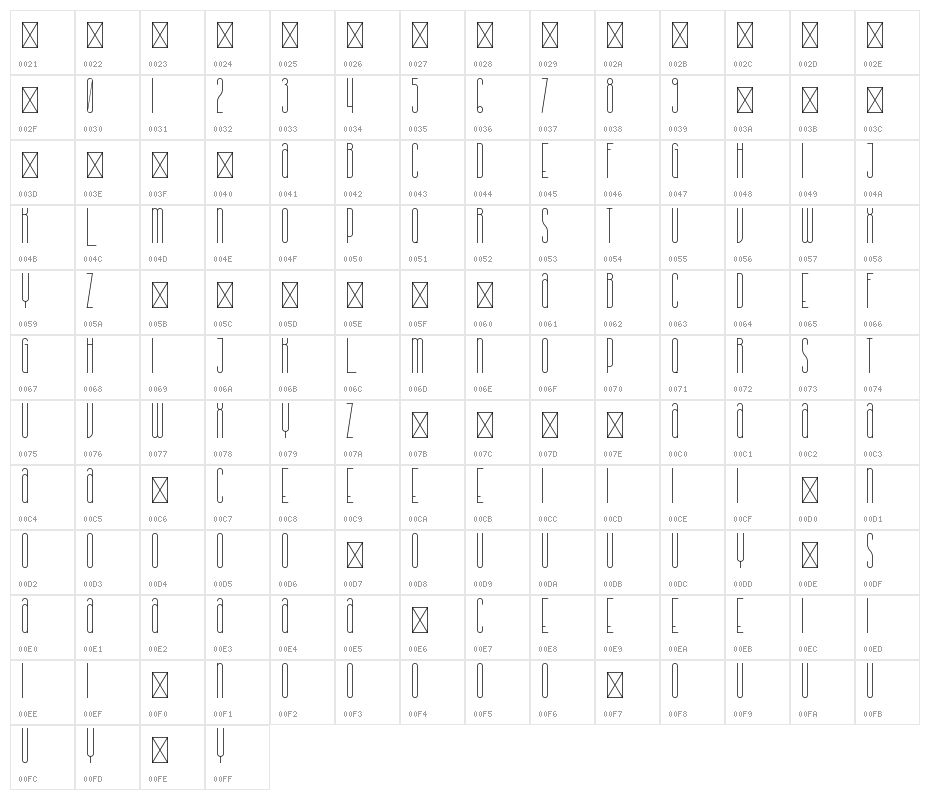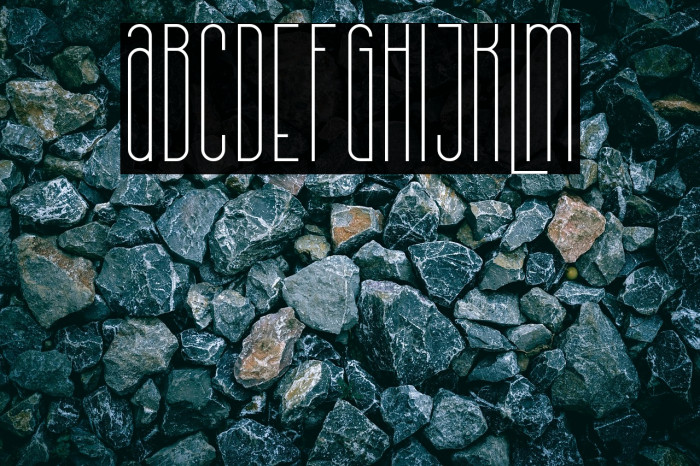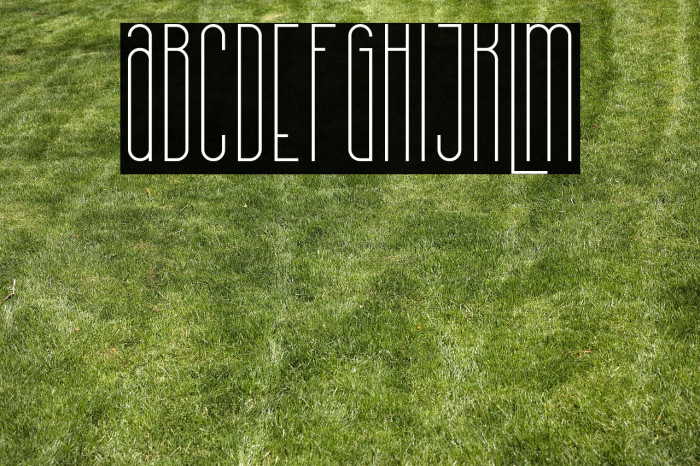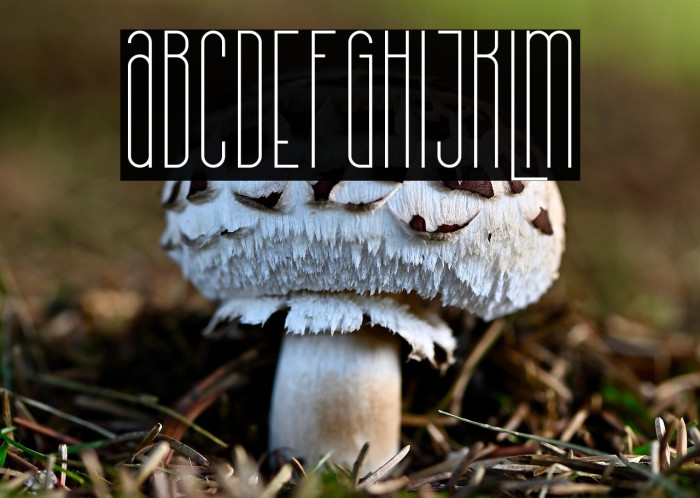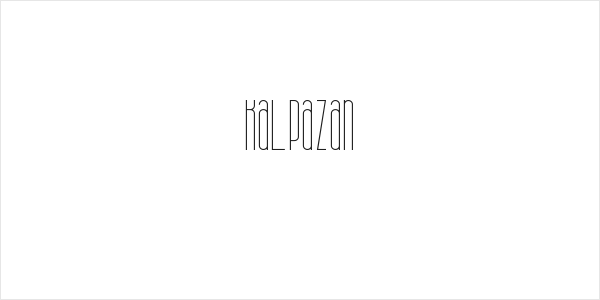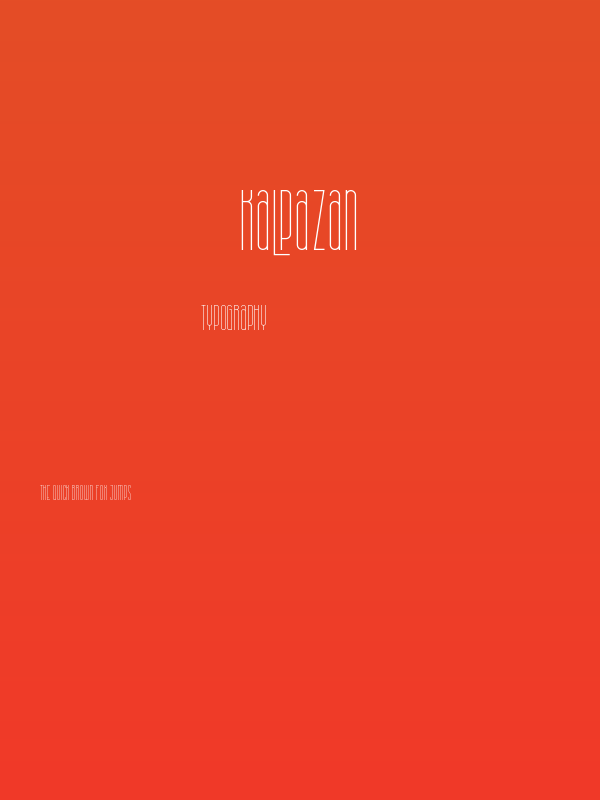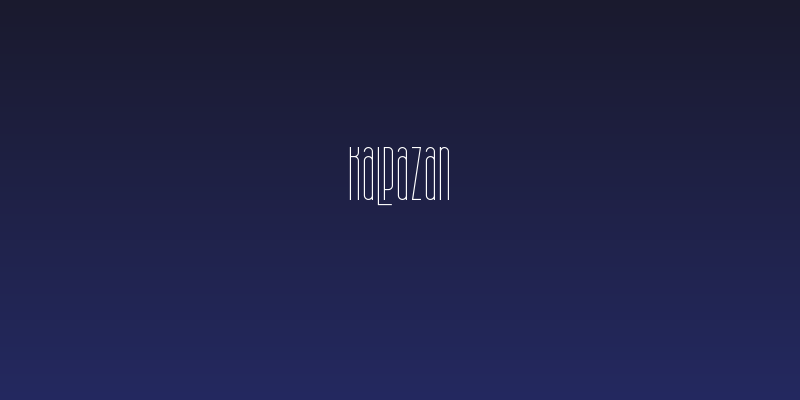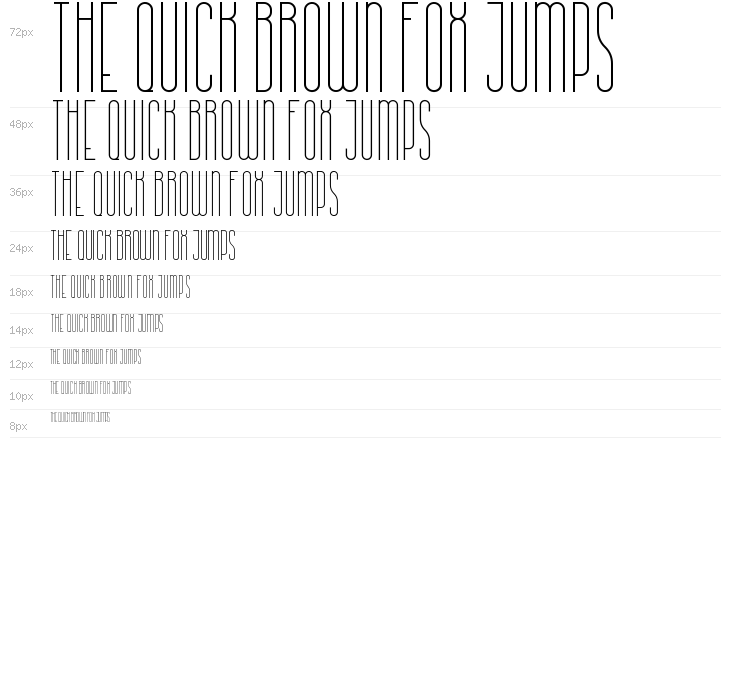
Kalpazan Font
Kalpazan Description
This font features a tall, narrow design with elongated vertical lines and minimal horizontal strokes, giving it a sleek and modern appearance. The characters are highly condensed, creating a striking and unique visual impact. The uppercase and lowercase letters maintain a consistent height, contributing to a uniform look across the text. The numerals follow the same design principles, ensuring coherence throughout. This font's distinct style makes it suitable for creative and artistic projects where a bold statement is desired.
| Proposed Projects | Ideal for posters, album covers, fashion branding, and modern art installations. |